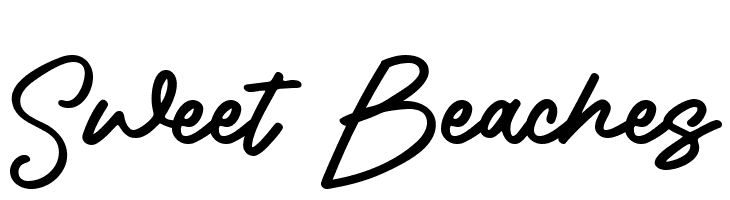
A playful, hand-drawn font with whimsical and bold letterforms.
A bold, retro-style font with thick, rounded edges and a playful design.
A bold, industrial font with a three-dimensional shadow effect.
A playful, bold font with rounded, thick strokes and a slightly slanted, dynamic appearance.
A gritty, distressed font with jagged, brush-like strokes.
Cartoon aquatic-themed dingbat icon set.